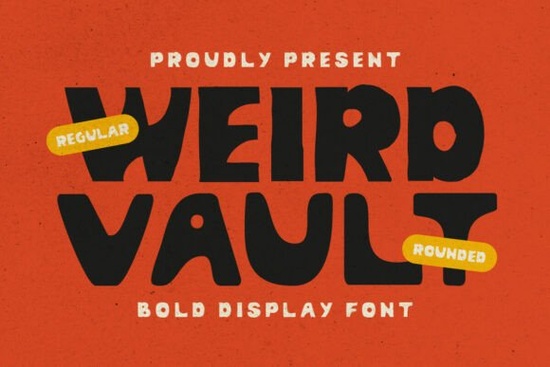
If you're looking for a bold, hand-crafted display font that feels human not sterile or over-polished you’ll likely enjoy Weird Vault Font. It’s designed to stand out without shouting: think strong letterforms with subtle irregularities, like something drawn with a thick marker and then scanned. The set includes both a regular and a rounded version, so you can match the tone of your project whether it’s playful, grounded, or quietly confident. And because it supports multiple languages, it works well for international branding, bilingual posters, or classroom materials where clarity across scripts matters.
When does Weird Vault Font work best?
This isn’t a body text font and it’s not meant to be. It shines in situations where you want attention, personality, and tactility. Think: a small-batch coffee shop logo, a sticker pack for teachers, a motivational quote poster for a preschool wall, or even a custom t-shirt design for a local band. Its handmade quality gives it warmth, while its bold weight ensures legibility at larger sizes even on fabric or vinyl.
Because it’s built for impact, designers often pair Weird Vault Font with cleaner sans-serifs or neutral typefaces for contrast. That kind of pairing helps balance energy with readability especially useful if you’re designing a flyer that needs both a headline and supporting details.
How does it compare to other display fonts on Creative Fabrica?
Like Outline Font, Weird Vault has strong visual presence but where Outline leans into crisp geometry and line-based structure, Weird Vault embraces slight imperfections. If you’ve used Sparko Font, you’ll notice Sparko is bouncier and more cartoon-like; Weird Vault feels more grounded, almost like chalk lettering on a painted sign.
For educators or early-learning creators, it shares some friendly energy with Preschool Poppers Font, but avoids the exaggerated cuteness making it versatile enough for older kids’ projects or even adult-focused wellness branding. And while Teachers’ Birthday Font is highly themed (and joyful), Weird Vault stays flexible: same font, many moods.
What kinds of projects actually use this font?
- Print-on-demand designs Works well on mugs, tote bags, and posters where texture and weight matter more than fine detail.
- Educational printables Especially for bulletin board headers or classroom rules posters where you want clarity and approachability.
- Small business branding Cafés, indie bookshops, craft studios anywhere a “handmade” feel aligns with brand values.
- Digital social graphics Standalone quotes or announcement banners benefit from its bold, uncluttered shape.
Is it multilingual? What languages does it cover?
Yes it includes extended Latin characters, so it supports English, Spanish, French, German, Portuguese, Italian, Dutch, Swedish, Norwegian, Danish, Finnish, Polish, Czech, Slovak, Slovenian, Croatian, and Turkish, among others. That means you can confidently use it for bilingual signage, ESL classroom posters, or products sold across EU markets. It doesn’t include Cyrillic or Asian scripts, so if your project requires those, double-check coverage before purchasing.
Try it at size first. Because it’s bold and handmade, smaller point sizes (under 24pt) may lose some of its charm or become harder to read. Stick to headlines, titles, and short phrases. Also, test spacing: the rounded version has slightly more generous side bearings, so it may need less tracking than the regular style.
If you’re layering it in a design tool (like adding an outline or shadow), keep effects subtle the font already carries visual weight. Overdoing effects can flatten its handmade appeal.
- ✅ Pair it with one simple, highly readable font for body text or captions